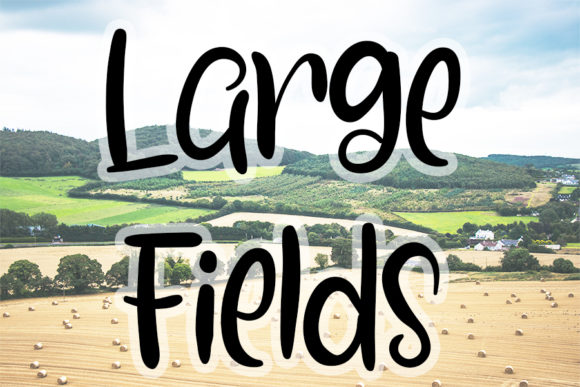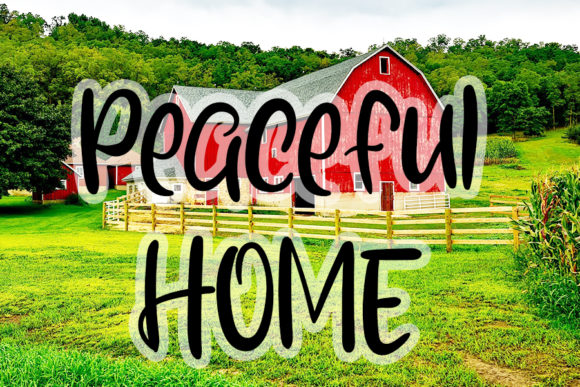
The Farm Font
db-ku.com - Script & Handwritten -- The Farm is a cute and relaxed handwritten font. Perfect for a variety of design ideas, this font will make each of them come alive!